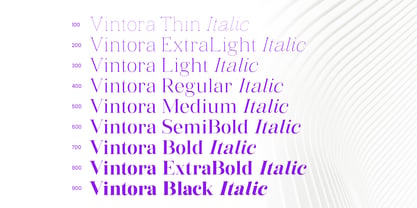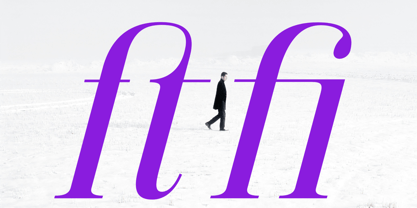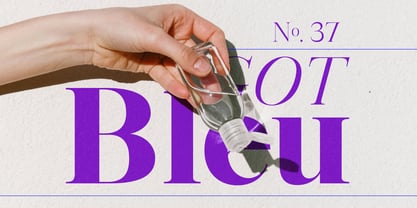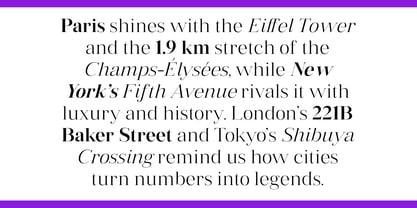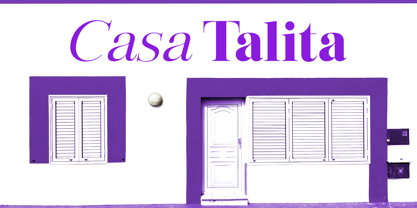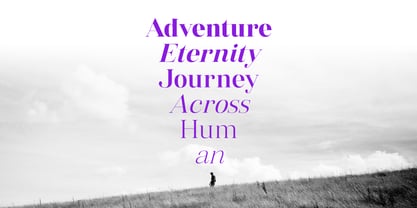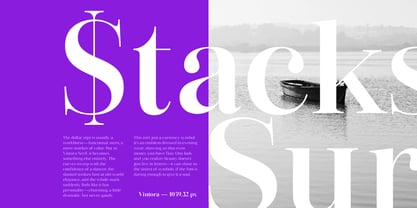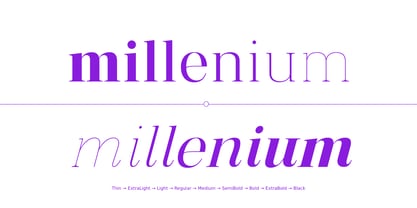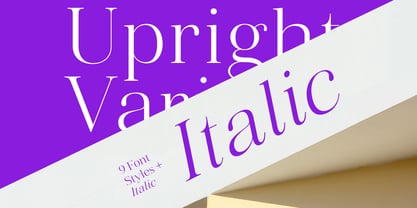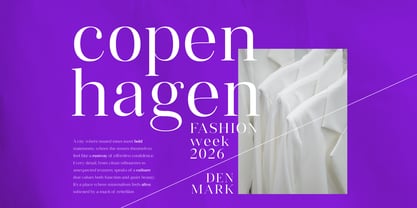
Vintora Serif
by Matra Creative
The Vintora Serif Font Family was designed by May Adifarzan muis and published by Matra Creative. Vintora Serif contains 94 styles and family package options. More about this family
Vintora Serif is a variable serif typeface designed to harmonize clarity, elegance, and expressive flexibility. Featuring 18 distinct styles—9 upright and 9 true italics—it offers smooth transitions across weight and tone, giving designers precise control over emphasis and mood.
Its serif structure blends classical proportions with contemporary refinement, creating a visual rhythm that feels both authoritative and approachable. The italic styles are not merely slanted versions—they are meticulously redrawn to deliver authentic typographic contrast and expressive nuance.
Whether used in brand identities, editorial layouts, or digital interfaces, Vintora Serif maintains high legibility while adapting effortlessly to diverse design needs. Inspired by strategic thinking and cultural depth, it’s more than a typeface—it’s a statement of identity, crafted for creators who value originality, technical finesse, and professional polish.
Designers: May Adifarzan muis
Foundry: Matra Creative